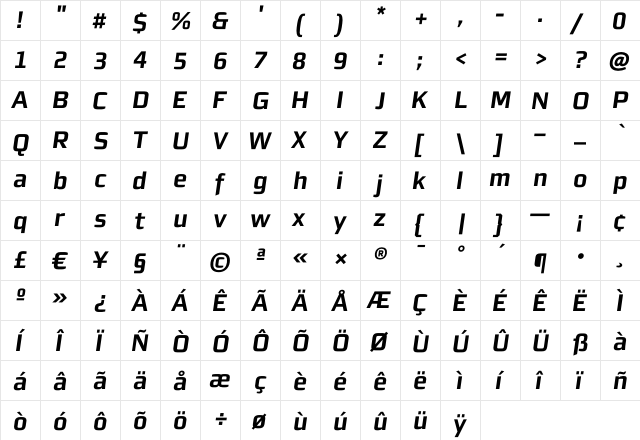
MorganSnLining Bold Oblique
Design Context for MorganSnLining Typeface
MorganSnLining is a composed and adaptable typeface that performs quietly and consistently across a wide range of design contexts. Its italic angle brings a sense of urgency and motion to the letterforms. The heavy weight commands attention and anchors typographic hierarchies.
Pro Tip: Use MorganSnLining for emphasis, pull quotes, and subheadings where its slanted energy can add rhythm to the layout.